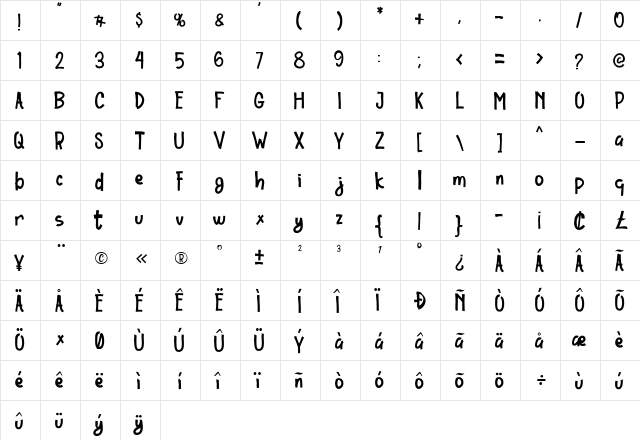
Ordinary Brush Regular
Design Context for Ordinary Brush Typeface
Ordinary Brush flows with the natural rhythm of handwritten lettering, making it ideal for designs that call for warmth and personal expression.
Font Pairing: Combine Ordinary Brush with a simple geometric sans for maximum contrast — the tension between flowing curves and clean structure is a classic typographic pairing.
Pro Tip: Use Ordinary Brush for short runs of text — names, titles, or taglines. Extended body copy in script faces tires the eye quickly.